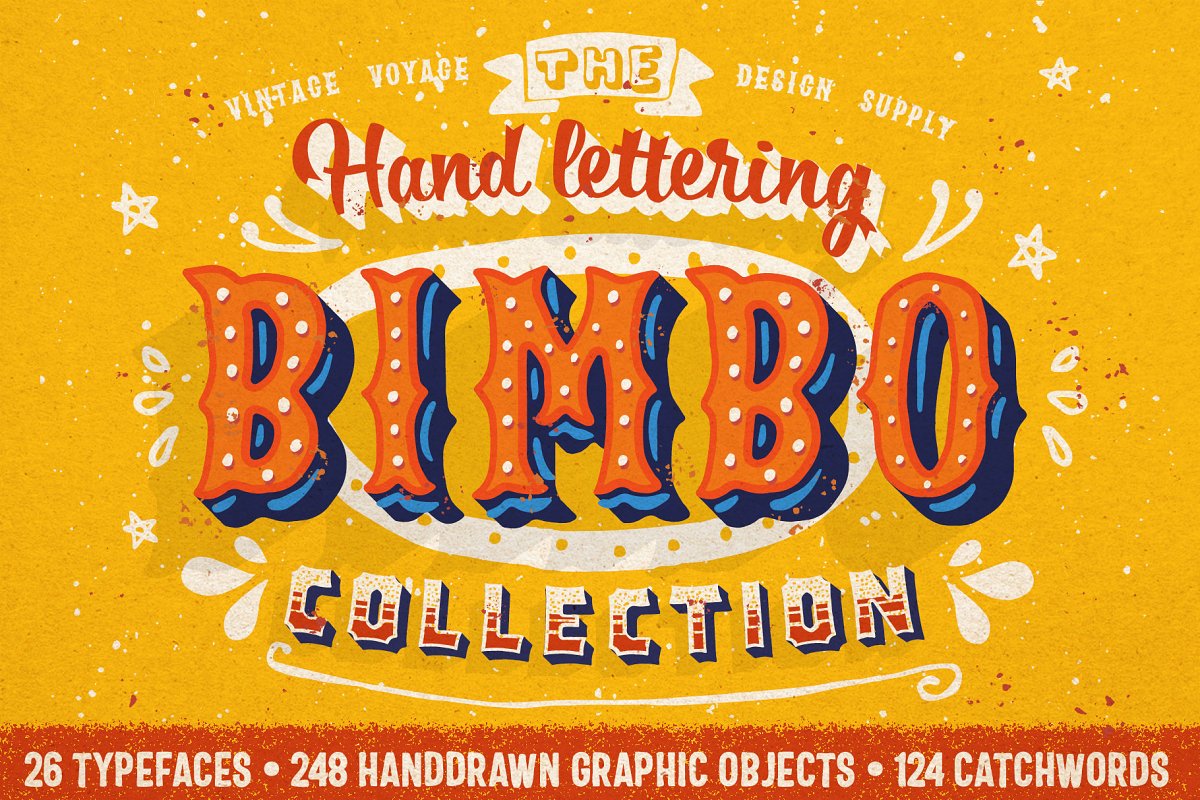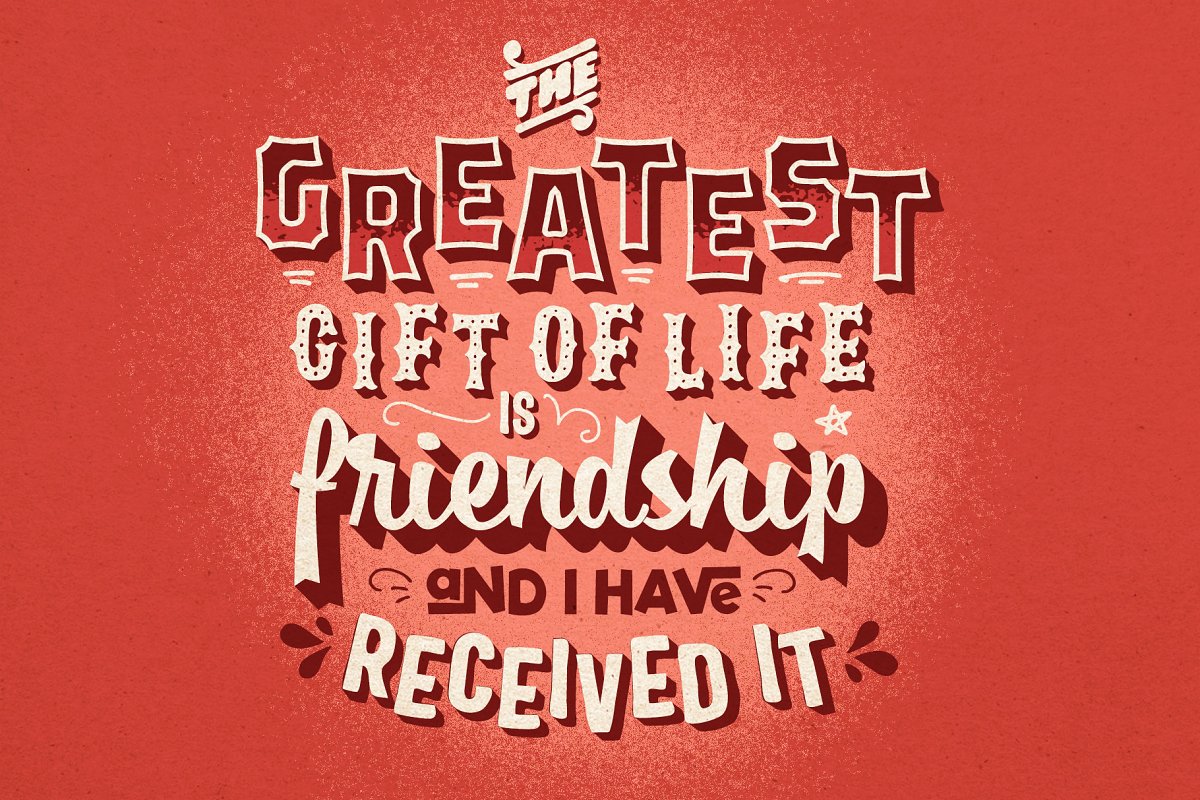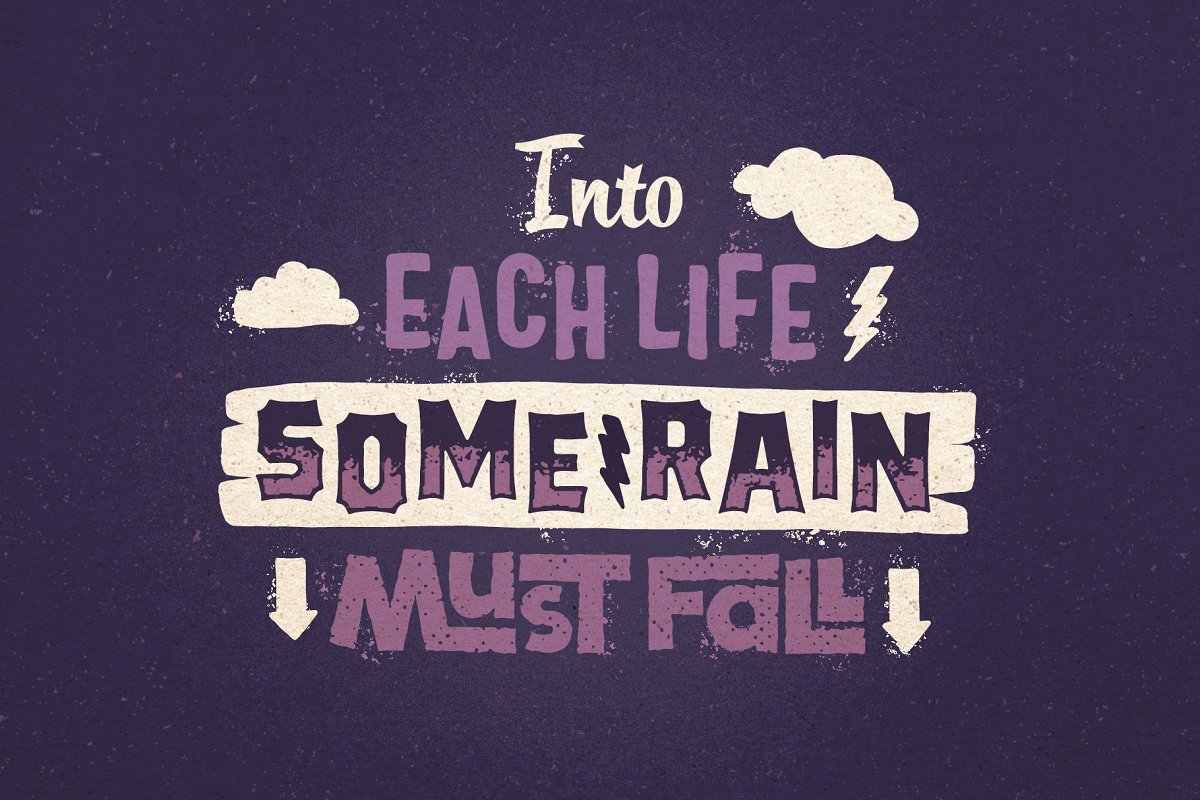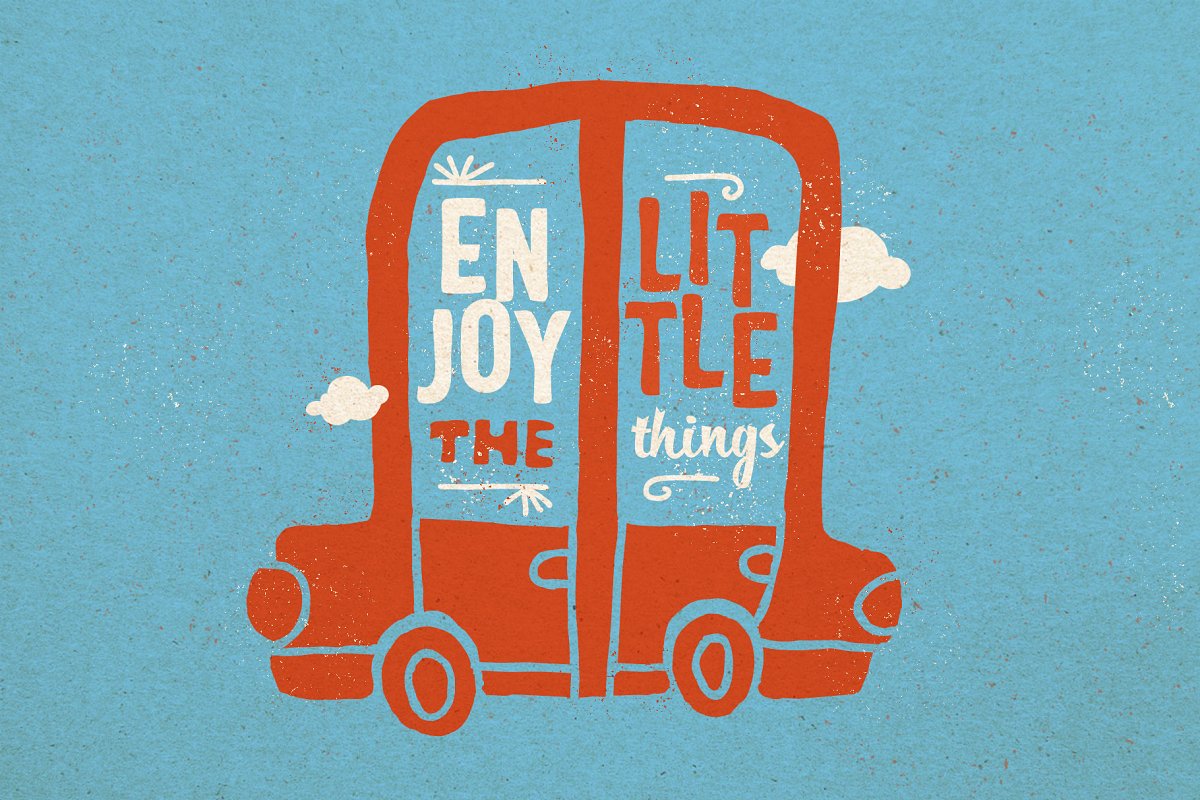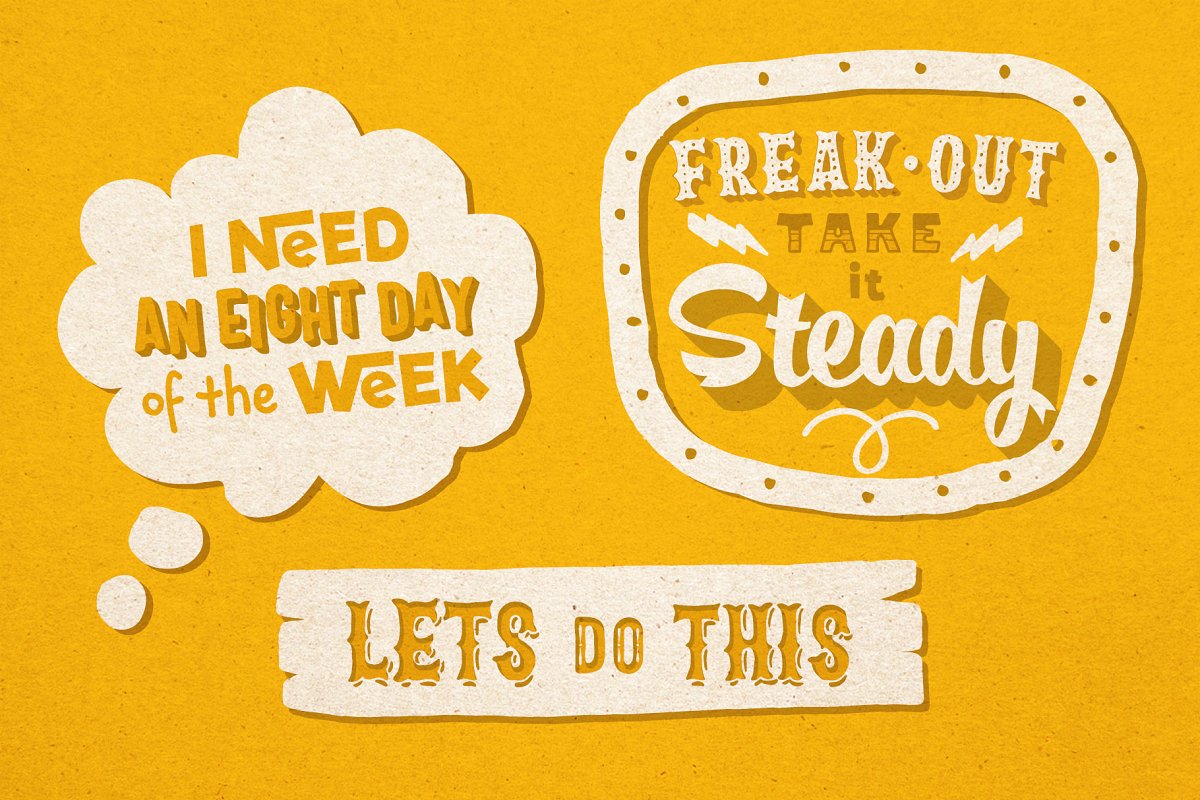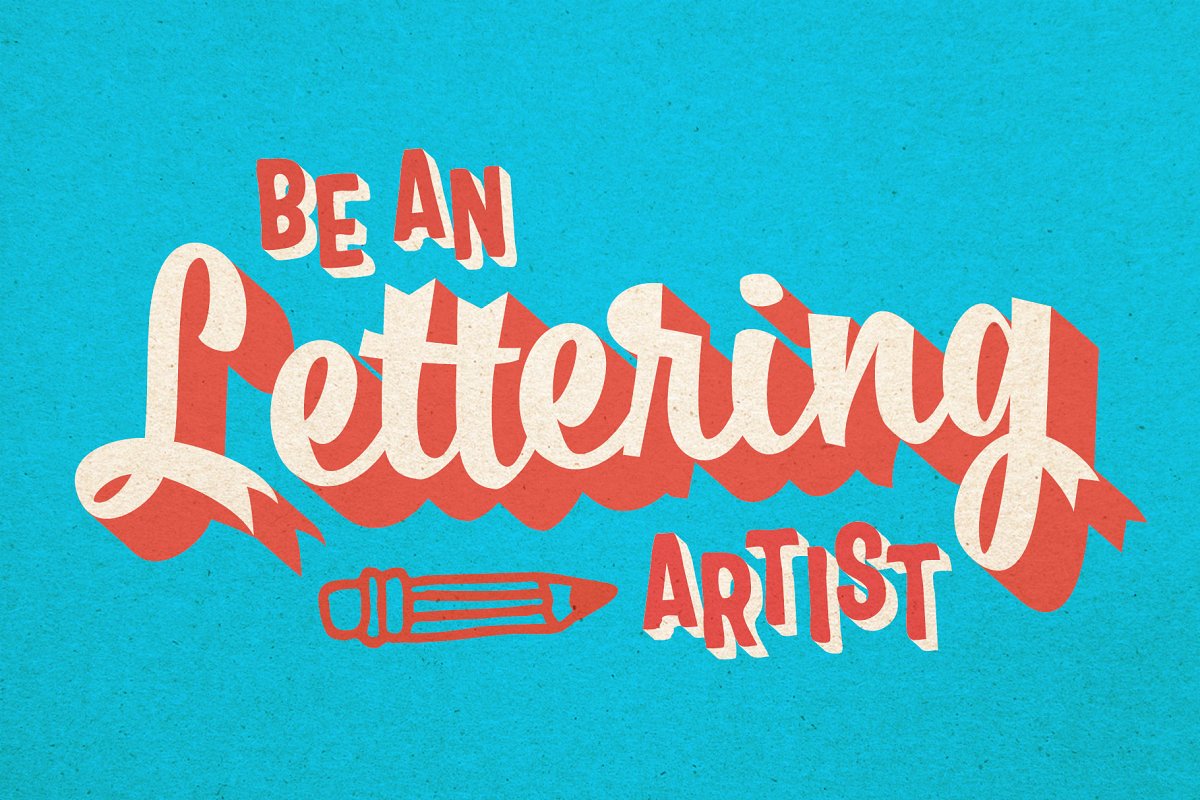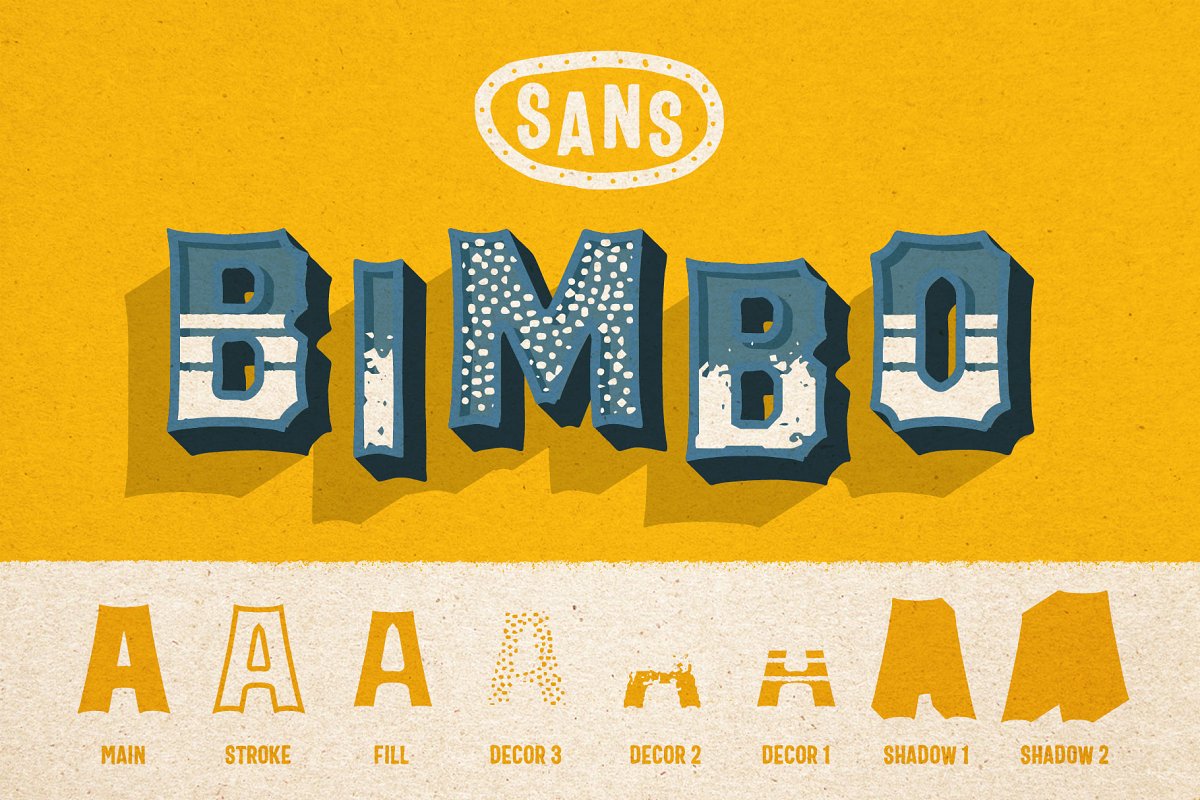
About the BIMBO • Hand Lettering Collection
Easy way to gives your poster, or gift cards, or gift paper or something else a hand touch for really short time, 25 typefaces, 248 hand drawn graphics and 124 catchwords, Also, you get my OneNineNineFour font for free as gift! Just because It’s perfect pair to this set
P, S, : VVDS_Bimbo Script Typefaces has some alternates and ligatures, Also, has a swatches (1-5 numbers alternates), Use the Glyphs Panel at your software, If you don’t have, use any font manager program which best for you, ;P, S, : The Distress in previews pic created by DISTRESS PRESS (https://crmrkt